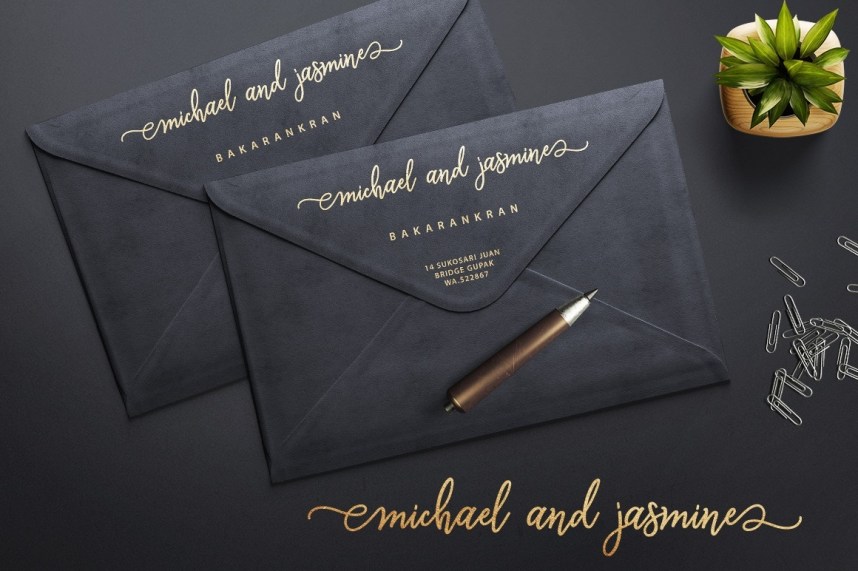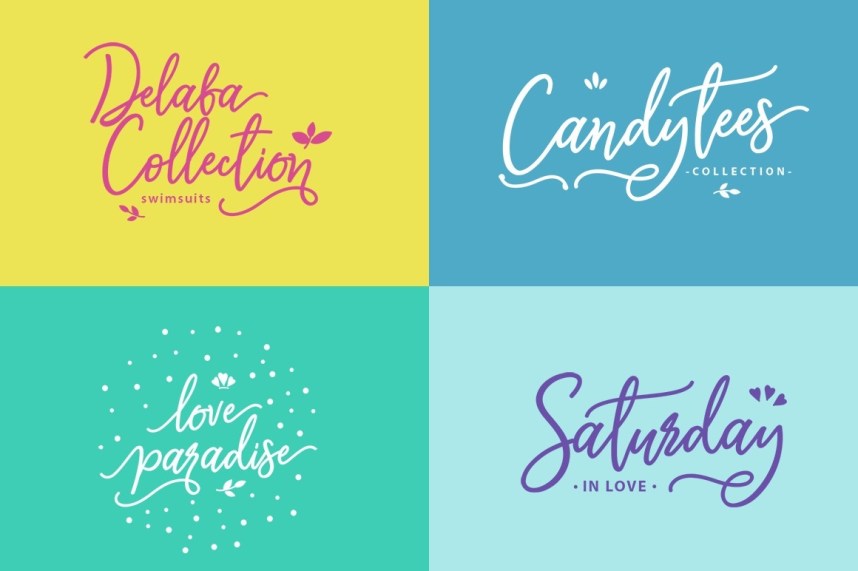
Monalisa Luxurious Script Font
Hello! Introducing Monalisa Luxurious Script Font. This is a new font script, it is impressive, and it will be very good for your design project. Add it right to your fonts collection. Monalisa Luxurious designed by sizimon. Monalisa Script is modern script typeface. Monalisa a beautiful for wedding card design, logotype, website header, fashion design and any more. Monalisa comes as a Monoline font, and also come with 413 Glyph and 37 Swash Characters. It contains a full set of lower & uppercase letters, a large range of punctuation, numerals, and multilingual support.